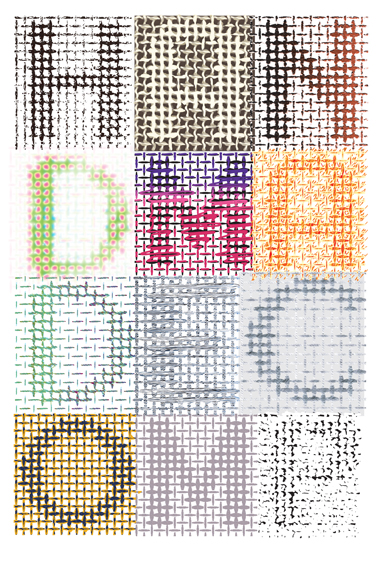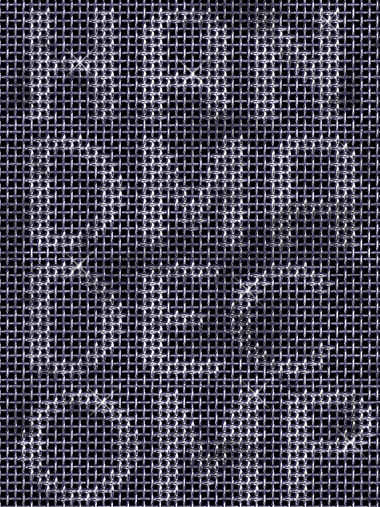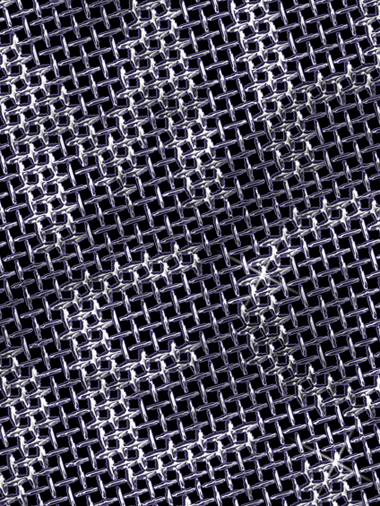
My understanding of the 32 pixel height limit is that no single character can be more than 32 pixels. So, for example, your upper G can go from 1 to 32 pixels high, while the lower g can go from -16 to 16 pixels.
Yeh I know but the 'j' messes it all up. So I figured I'd add the full lowercase after the comp.
I think the 32 height limit is just a tad too restrictive, to really get the best out of Fontstruct.
Nice subtle effect in this one.